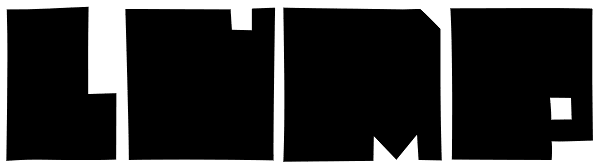
Lump
Lump started as a series of hand-drawn buttons I made for a Lumpen event in 2005. This digital version keeps the linework loose and the corners choppy. Use Lump wherever you need a hefty urban feel. Stack the letterforms like bricks to build a wall...